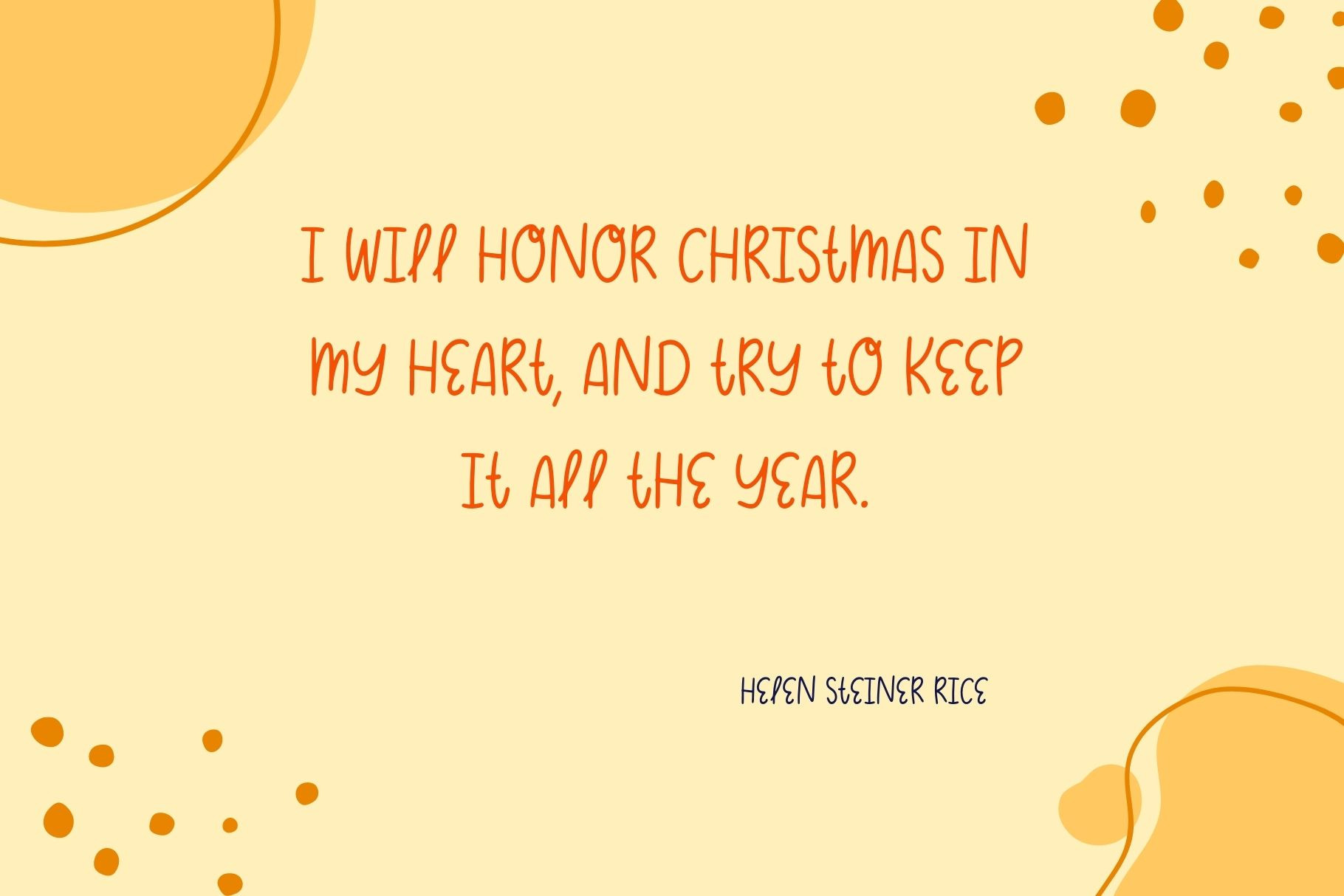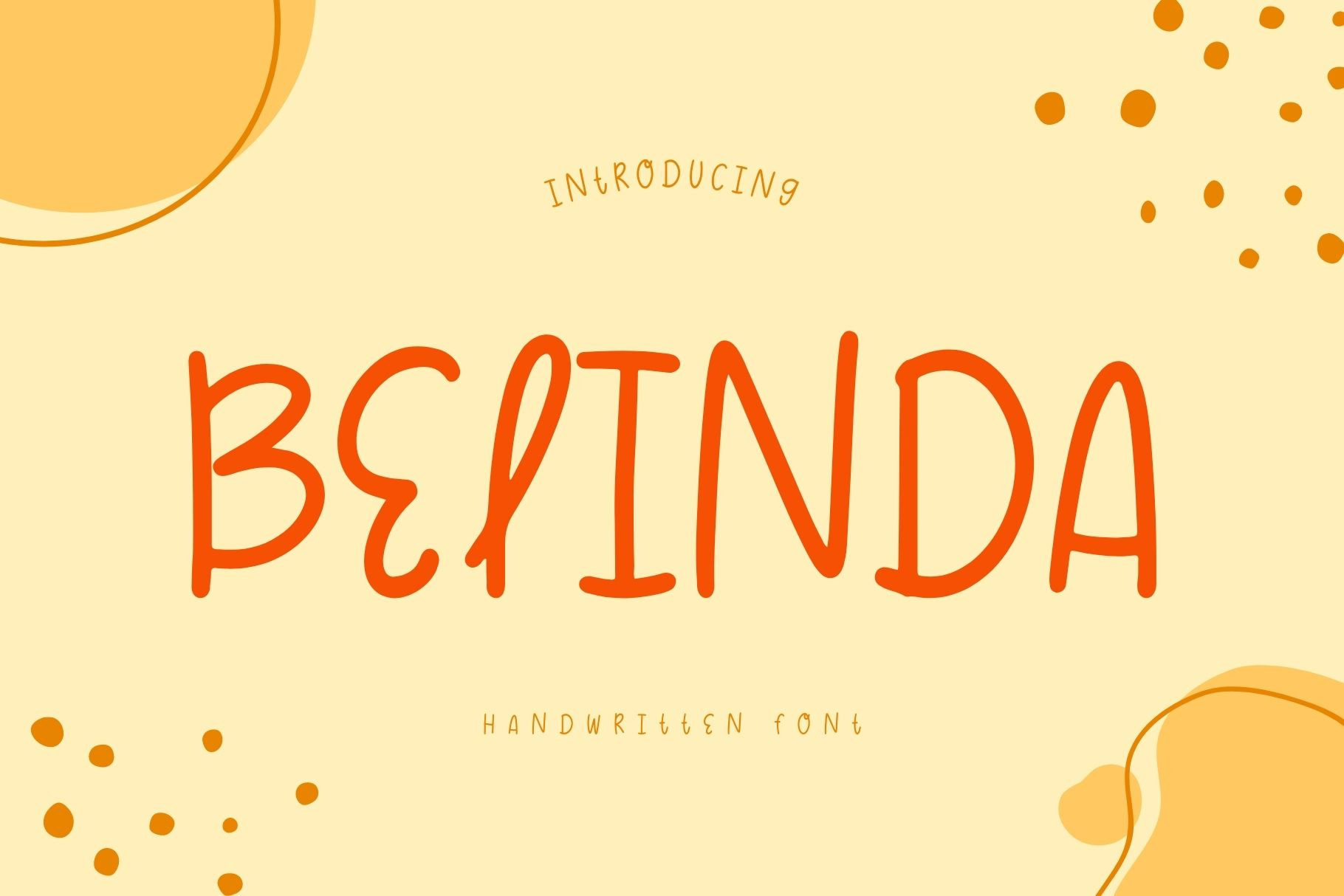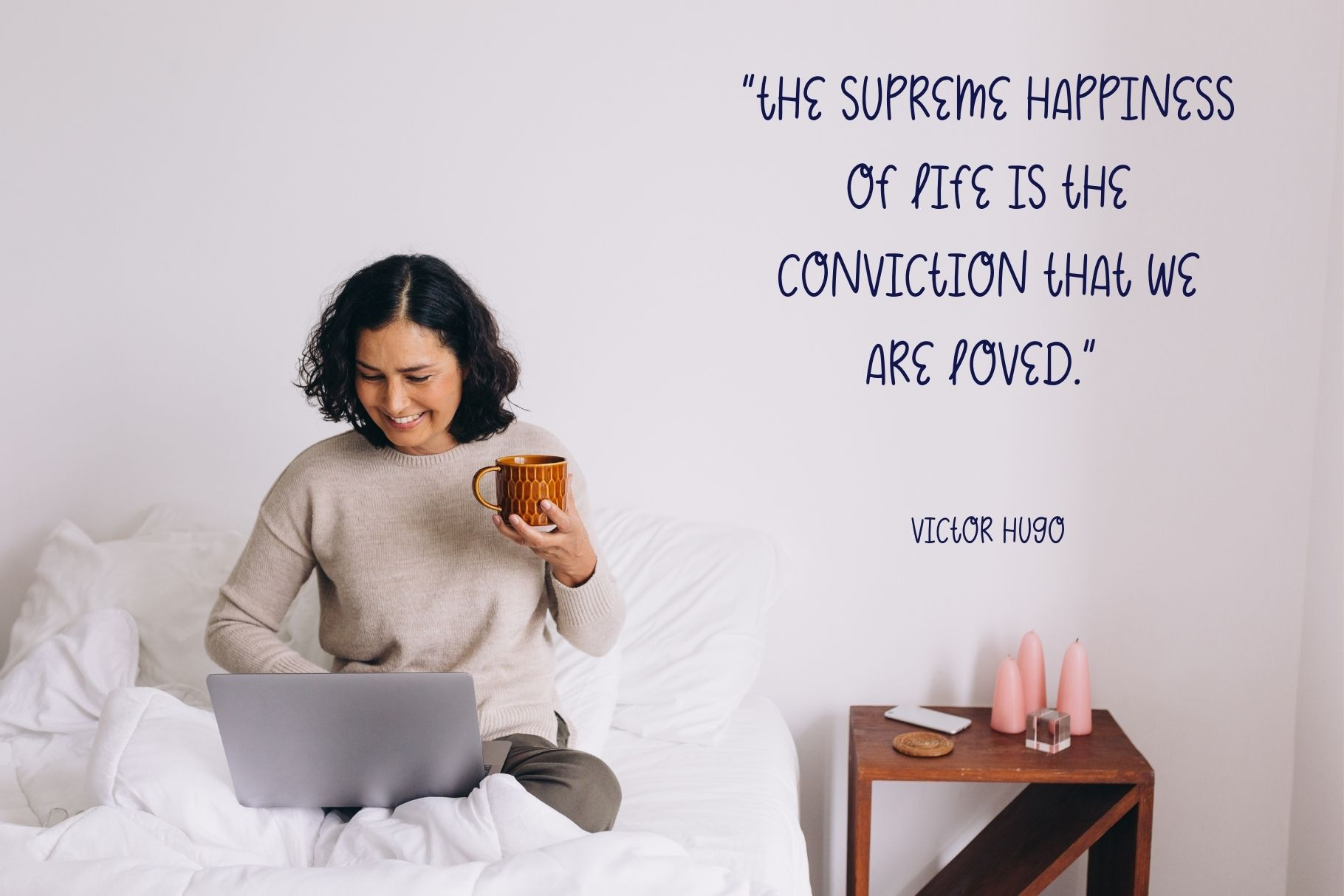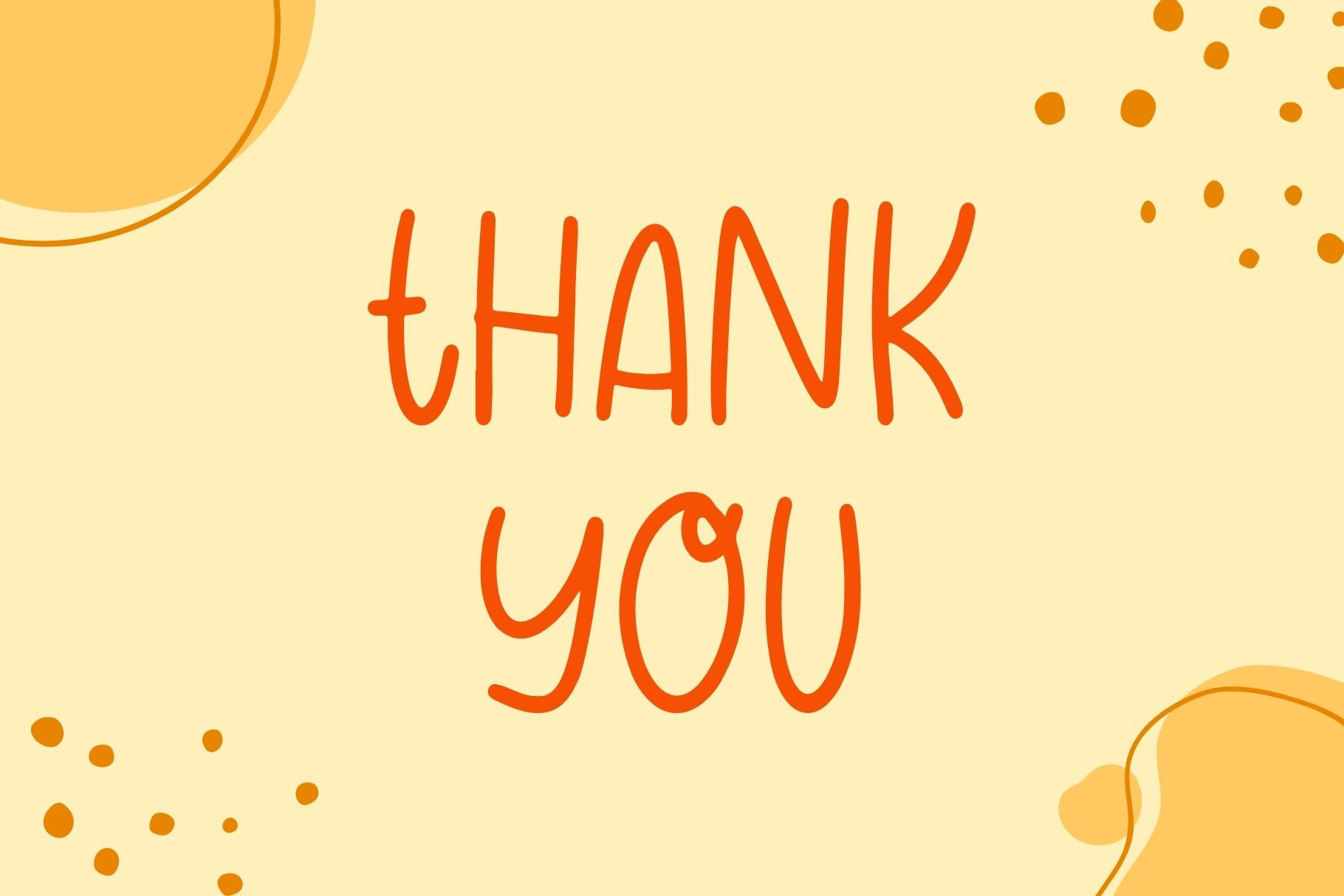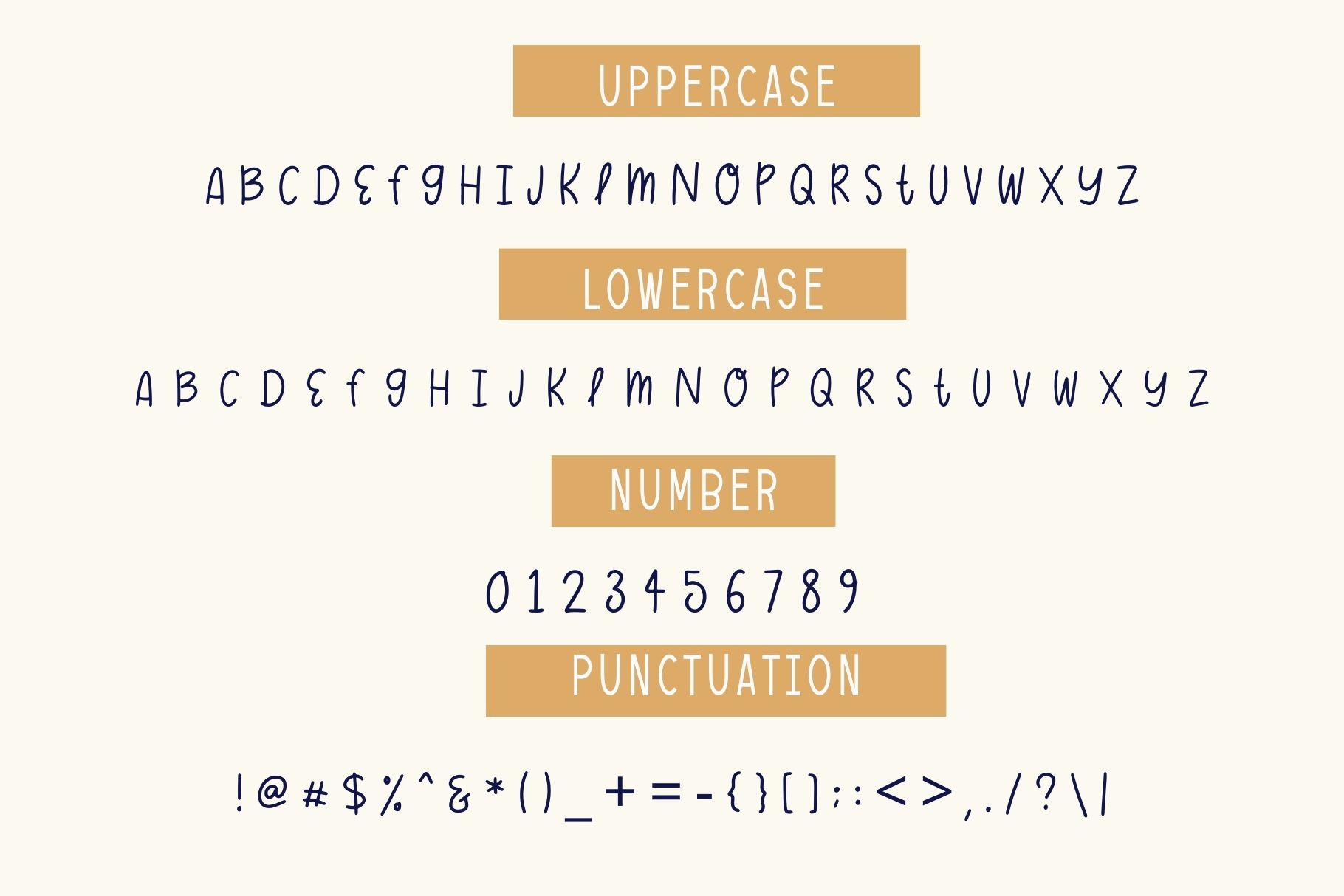
Belinda - Handwritten Font by Brown Cupple | Creative Market
Belinda is a cute and handwritten font. The lightness of its characters makes it suitable for a wide range of design projects. It embodies playfulness and authenticity and is the perfect choice for all your favorite projects, or even for blog posts, logos, branding, ads, invitations, greeting cards, planners, photo albums, decorations, and much more. Add it to any of your designs, and enjoy the results! | Belinda - Handwritten Font | Brown Cupple